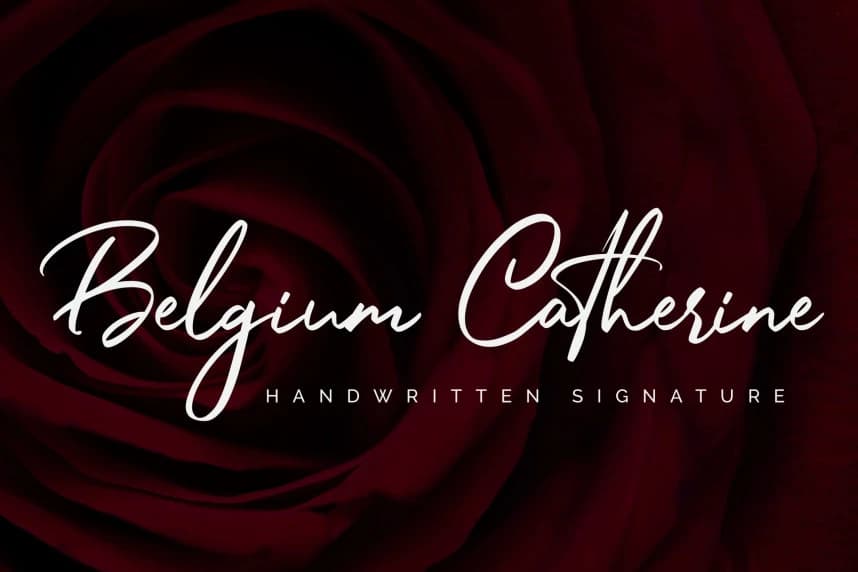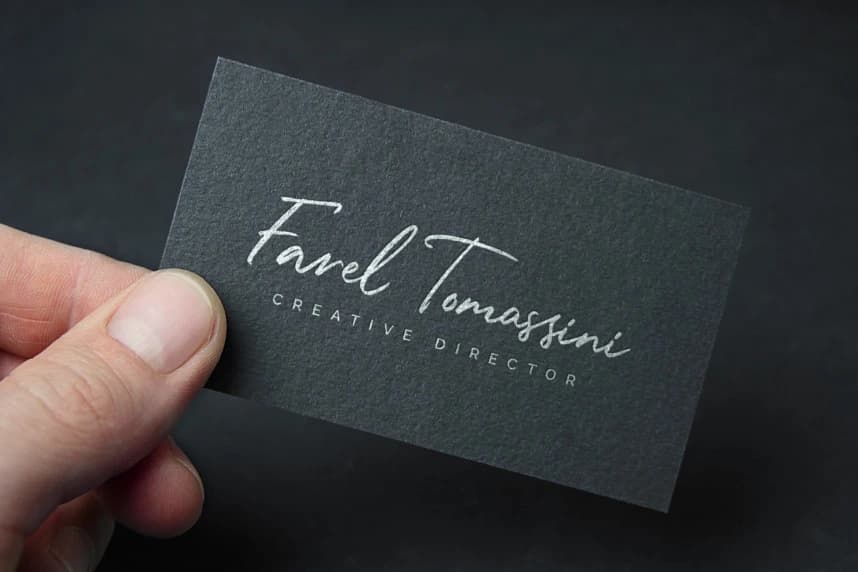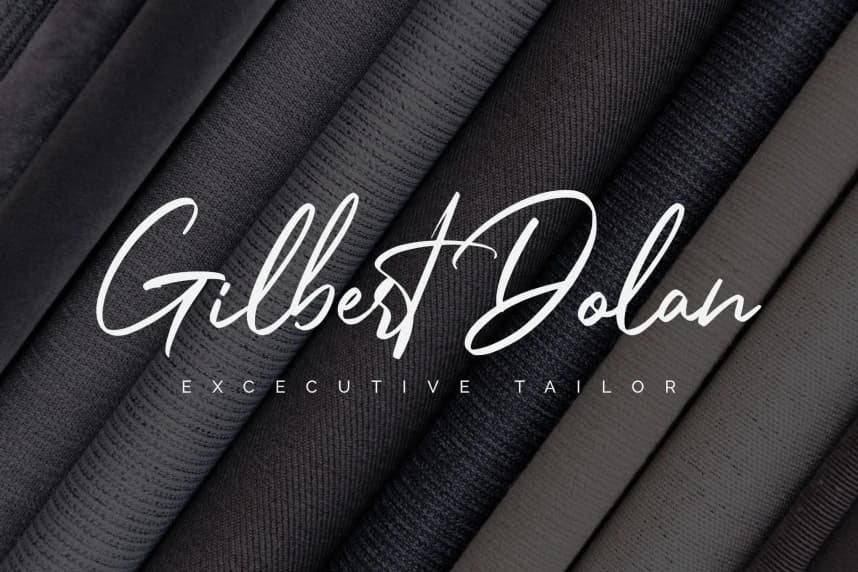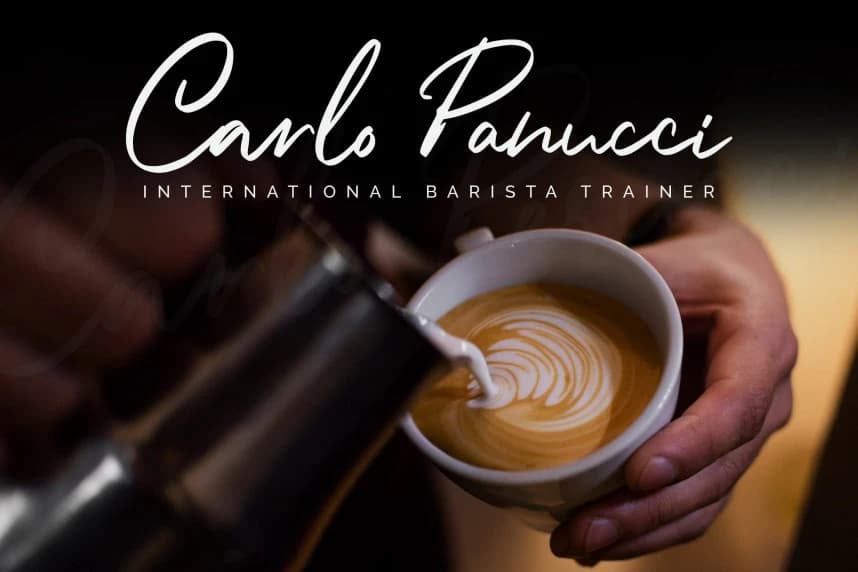
Belgium Catherine Font
Belgium Catherine Font – Handwritten Signature Font is a handwritten script font with a Signature Style and classy style, this font is great for your creative projects such as watermark on photography, and perfect for logos & branding, photography